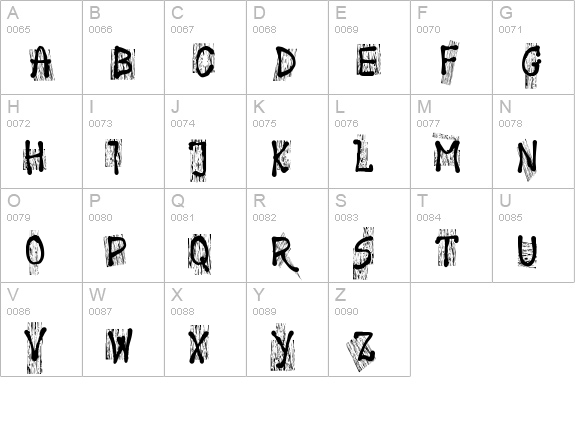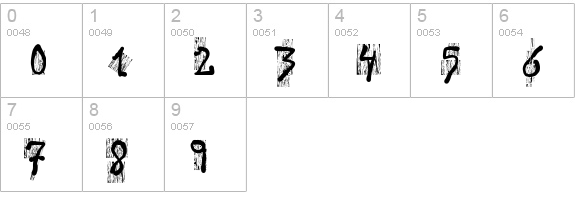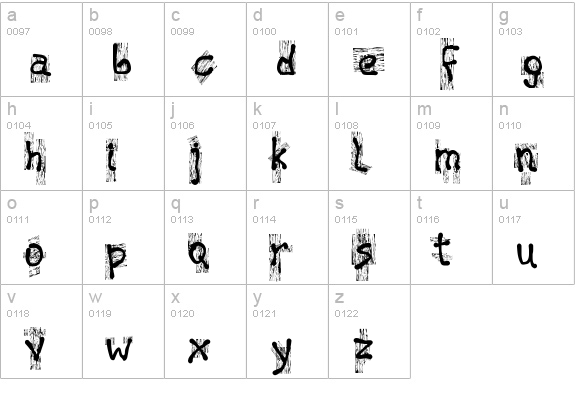
History Brush Font Details
History Brush is a beautifully crafted font that exudes elegance and sophistication. Its classic yet modern design makes it perfect for various design projects, from invitations to branding and everything in between. The vintage-inspired details of History Brush give it a timeless appeal that is sure to make your projects stand out. Best of all, History Brush is available for free download at FontsMarket.com. This means you can easily access this stunning font and start using it in your designs without any cost. Don't miss out on this amazing opportunity to enhance your projects with the exquisite charm of History Brush font. Download it now and let your creativity shine!